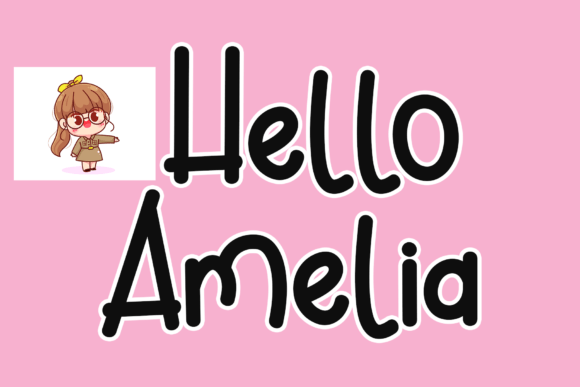
Hello, Amelia! Your Quest For An Alluring Script Font Ends Here!
Introduce yourself to Hello Amelia, an exquisite script font family born from the creative vision of pinkmeca. Brimming with a playful spirit and a hint of elegance, this font is the perfect companion for your creative projects. Let your designs sing with Hello Amelia's distinct and timeless style, crafted to leave a lasting impression.
Step into a world of endless possibilities, where your business website shimmers with the elegance of the Hello Amelia font. Its captivating curves and delicate strokes exude professionalism, inviting customers to engage with your brand in a meaningful way. The font's versatility extends beyond the digital realm; it seamlessly adorns print materials, adding a touch of sophistication to brochures, flyers, and packaging.
With Hello Amelia by your side, you'll experience the joy of creating designs that resonate with your audience. Its charming personality radiates through every letter, adding a touch of whimsy to invitations, greeting cards, and social media posts. Unleash your creativity and craft designs that captivate and inspire, leaving a lasting impression on your customers.
Don't settle for ordinary fonts; embrace the extraordinary with Hello Amelia. Its unique style will transform your visual identity, making your brand stand out in a crowded marketplace. Say goodbye to bland and uninspired designs and embrace the playful elegance of Hello Amelia.